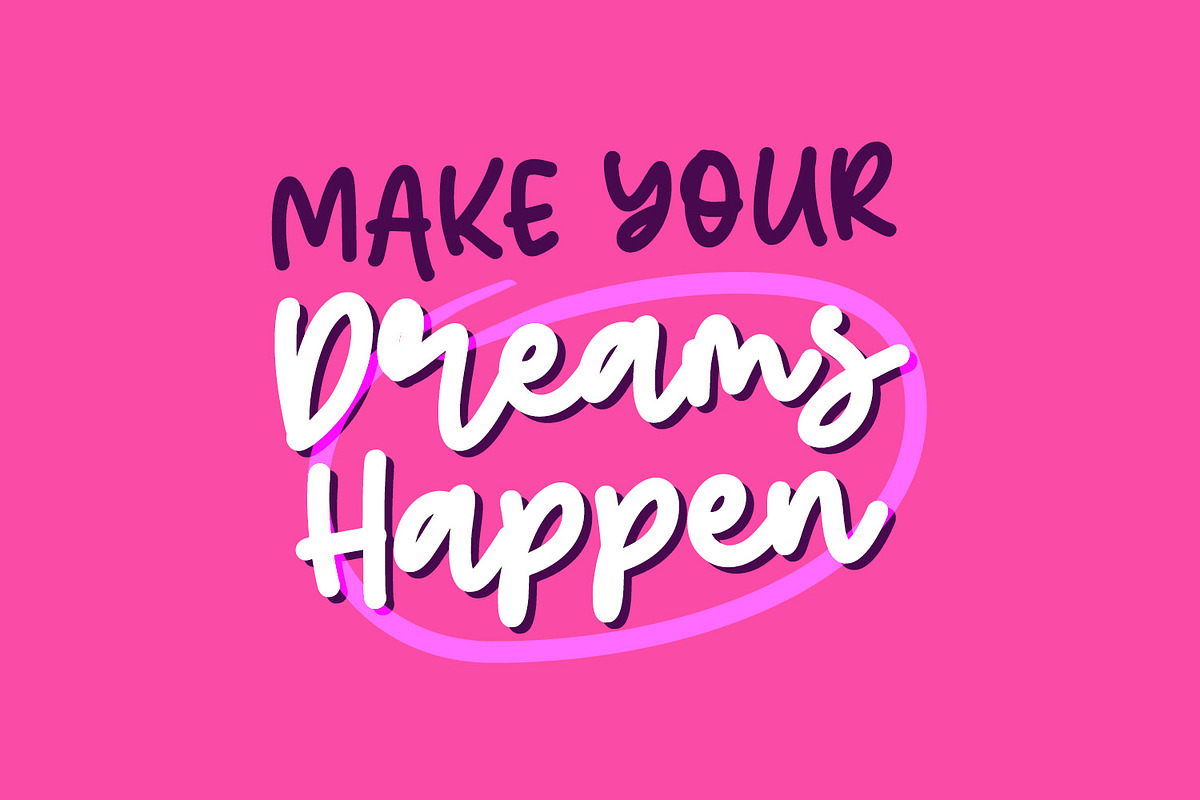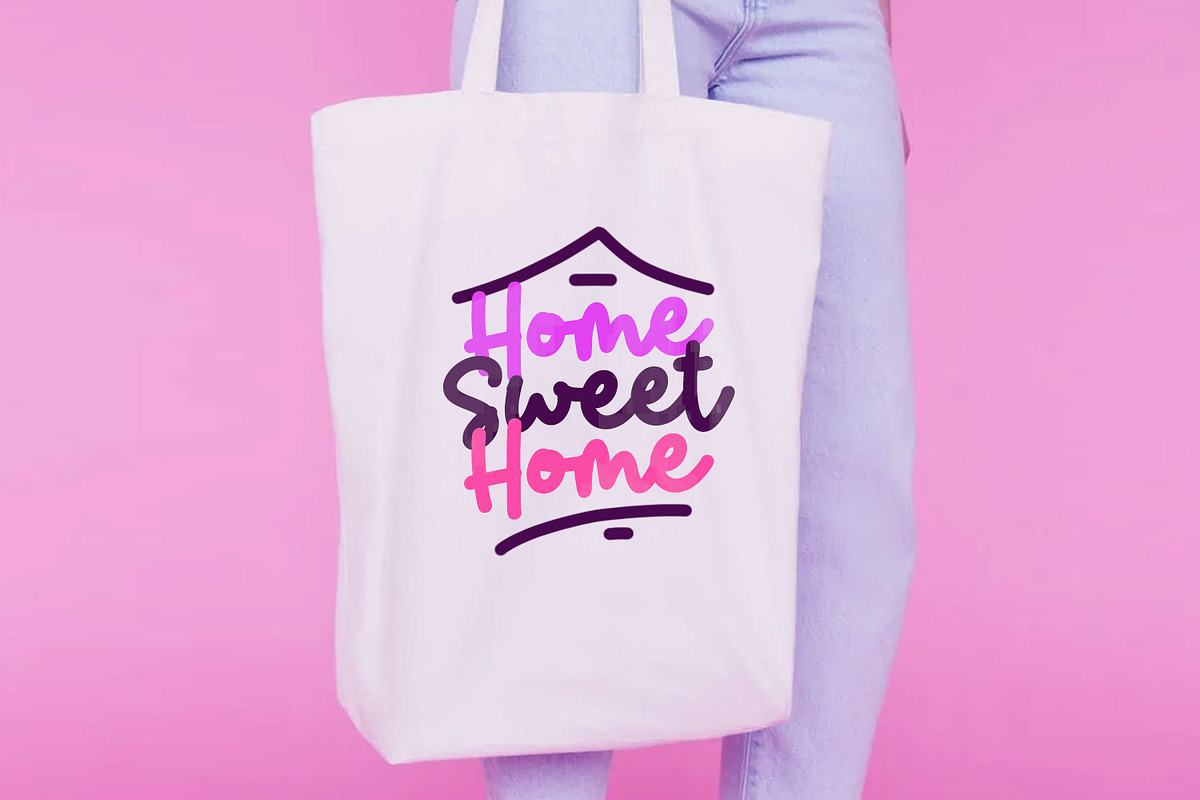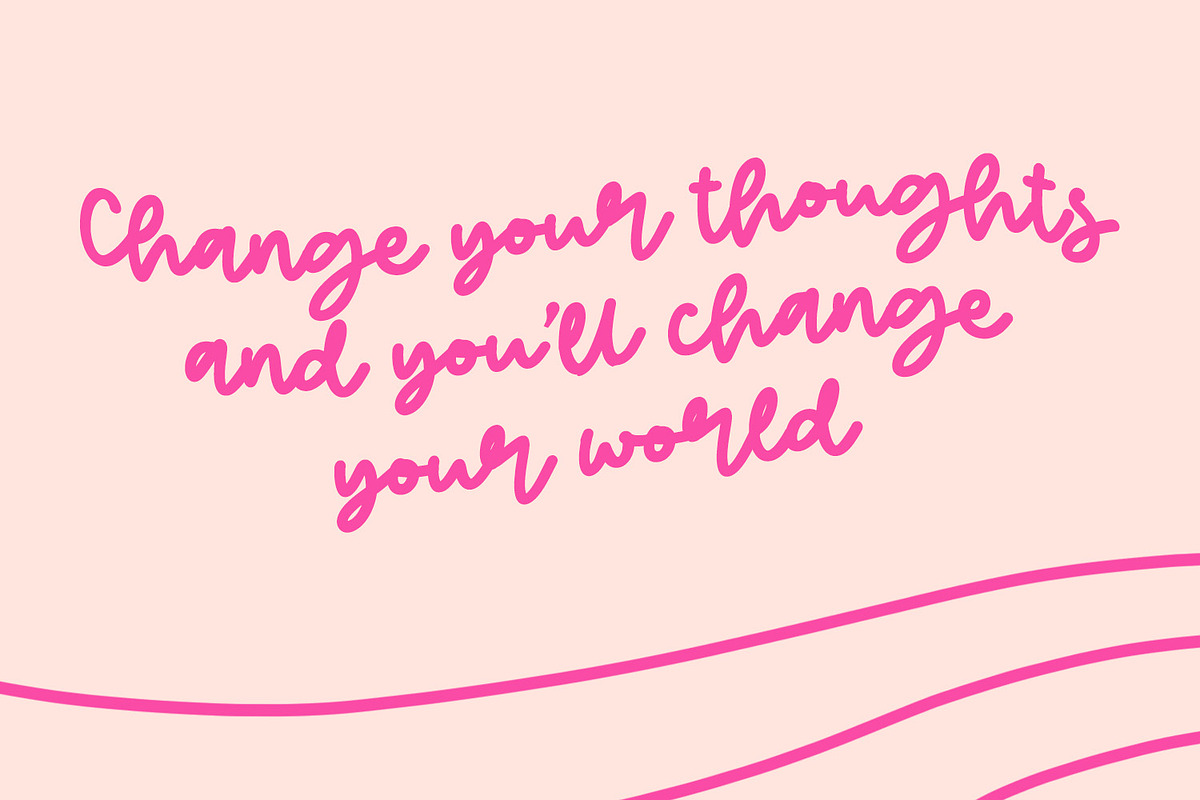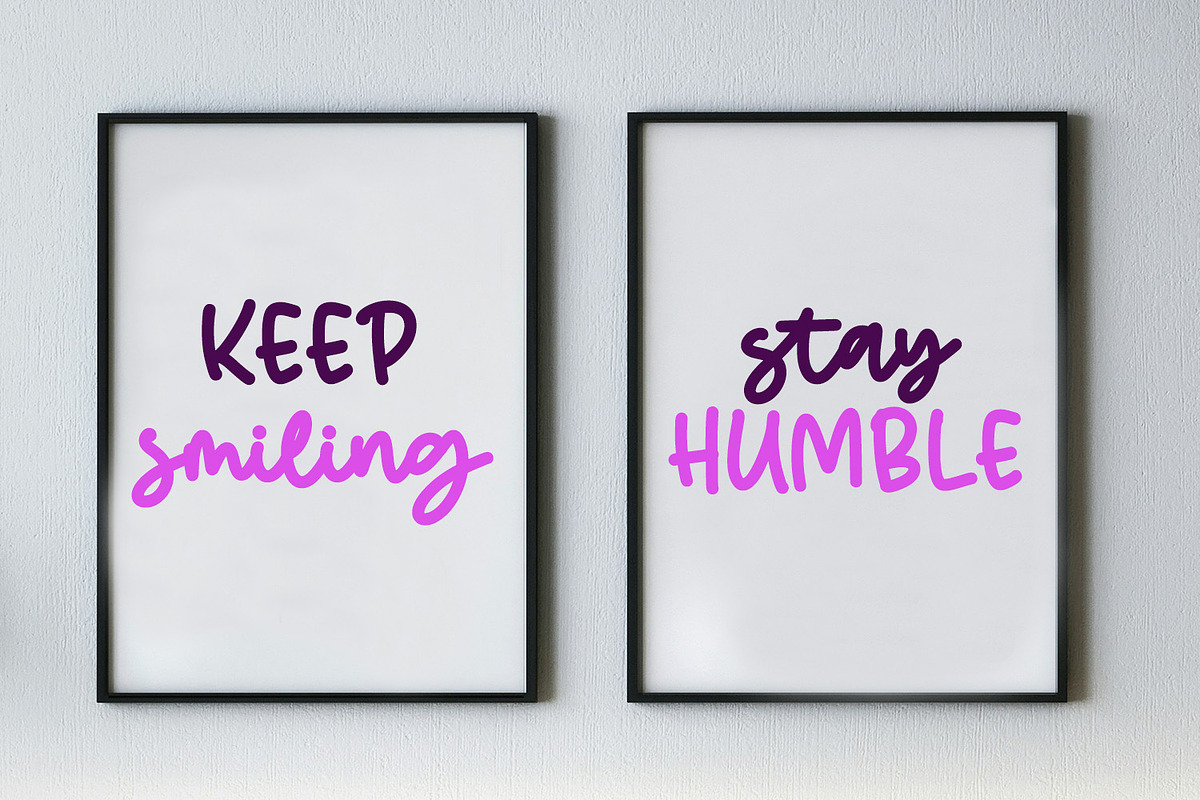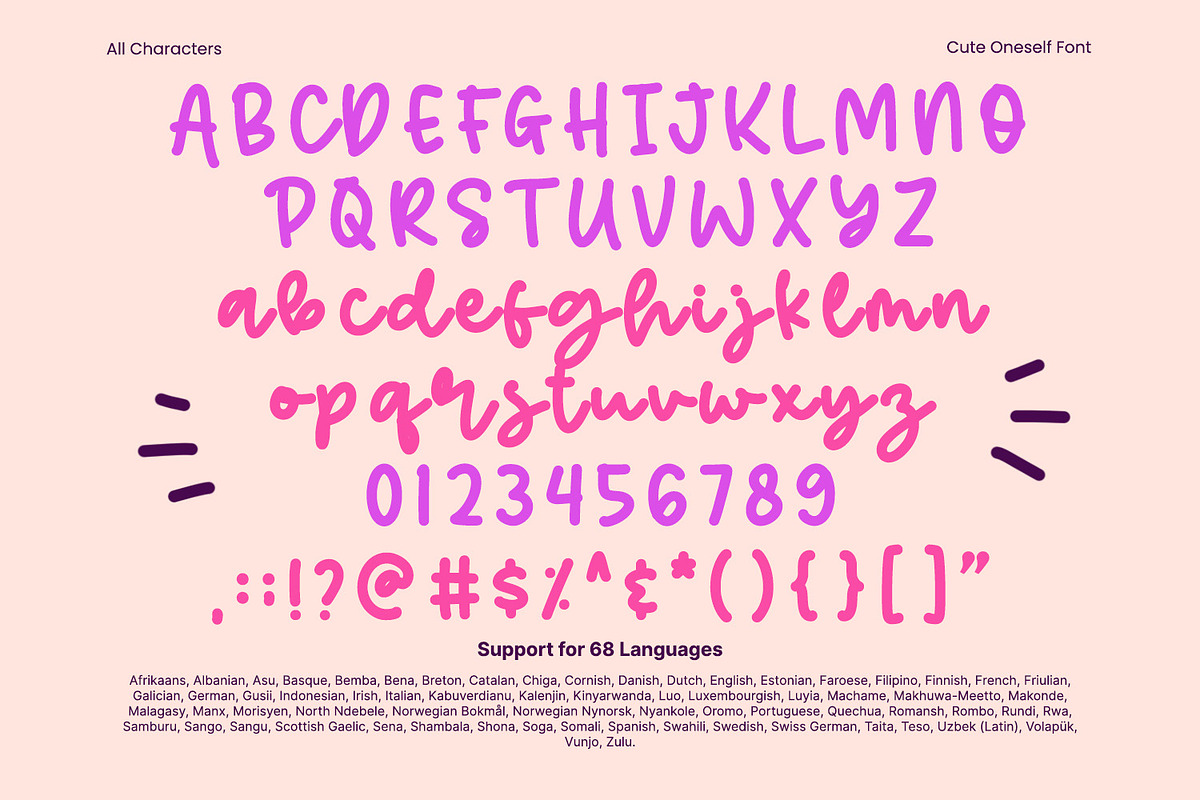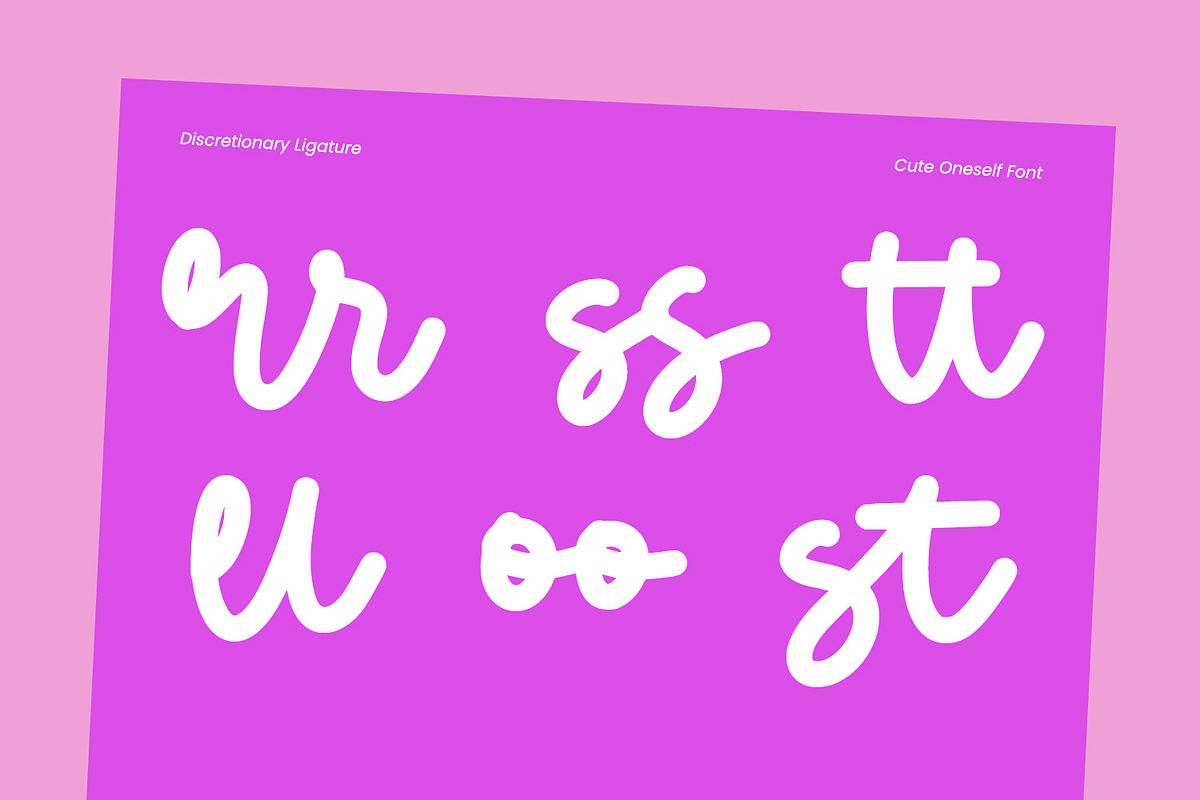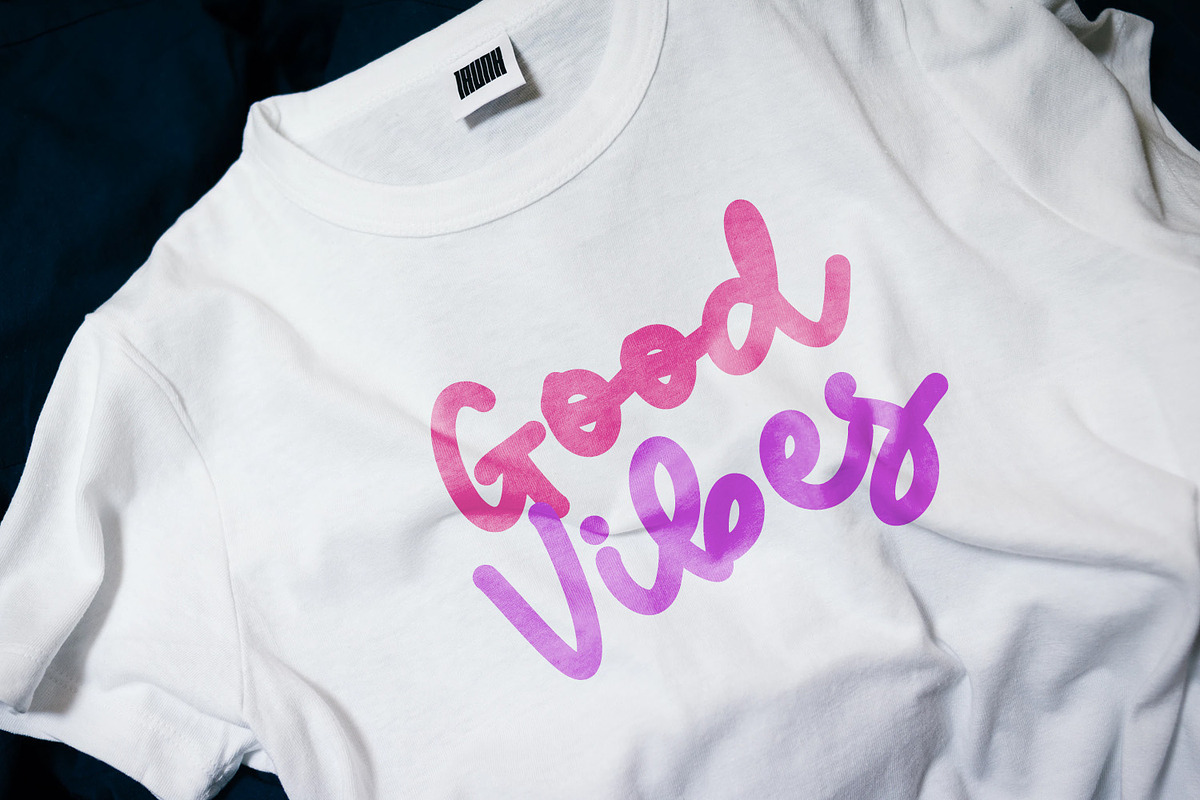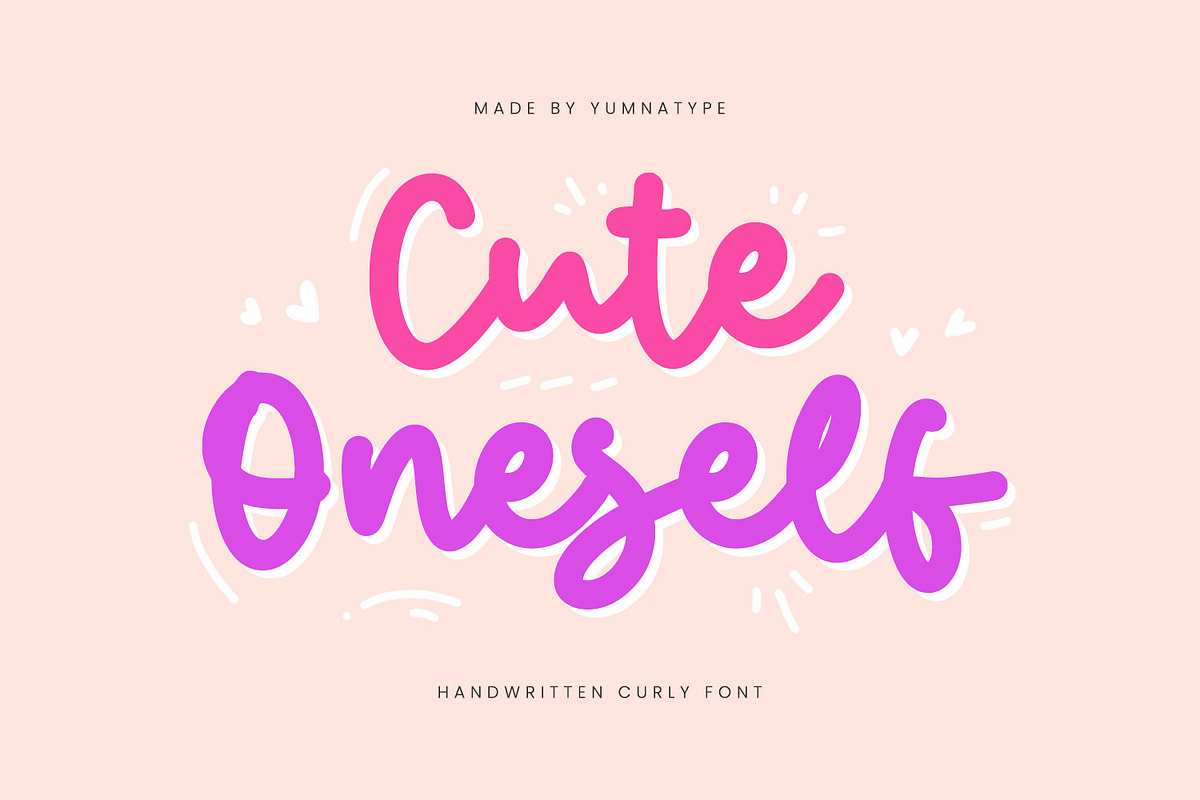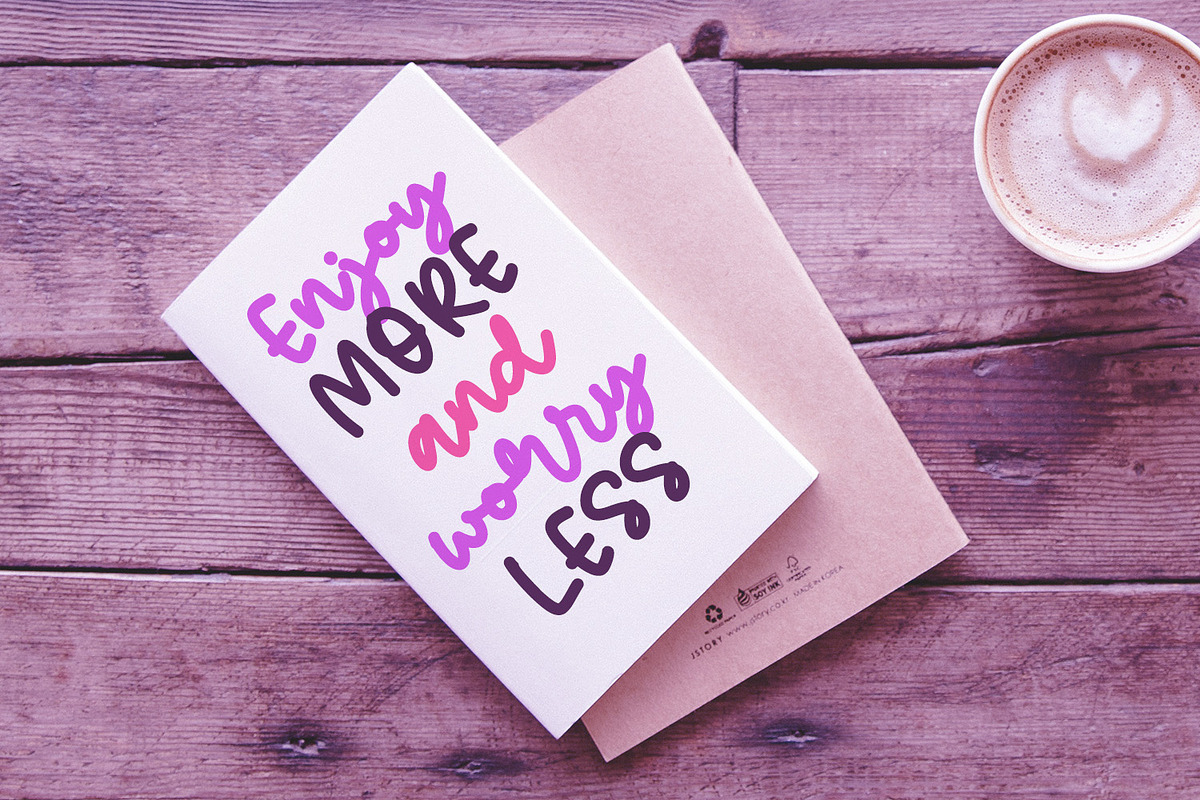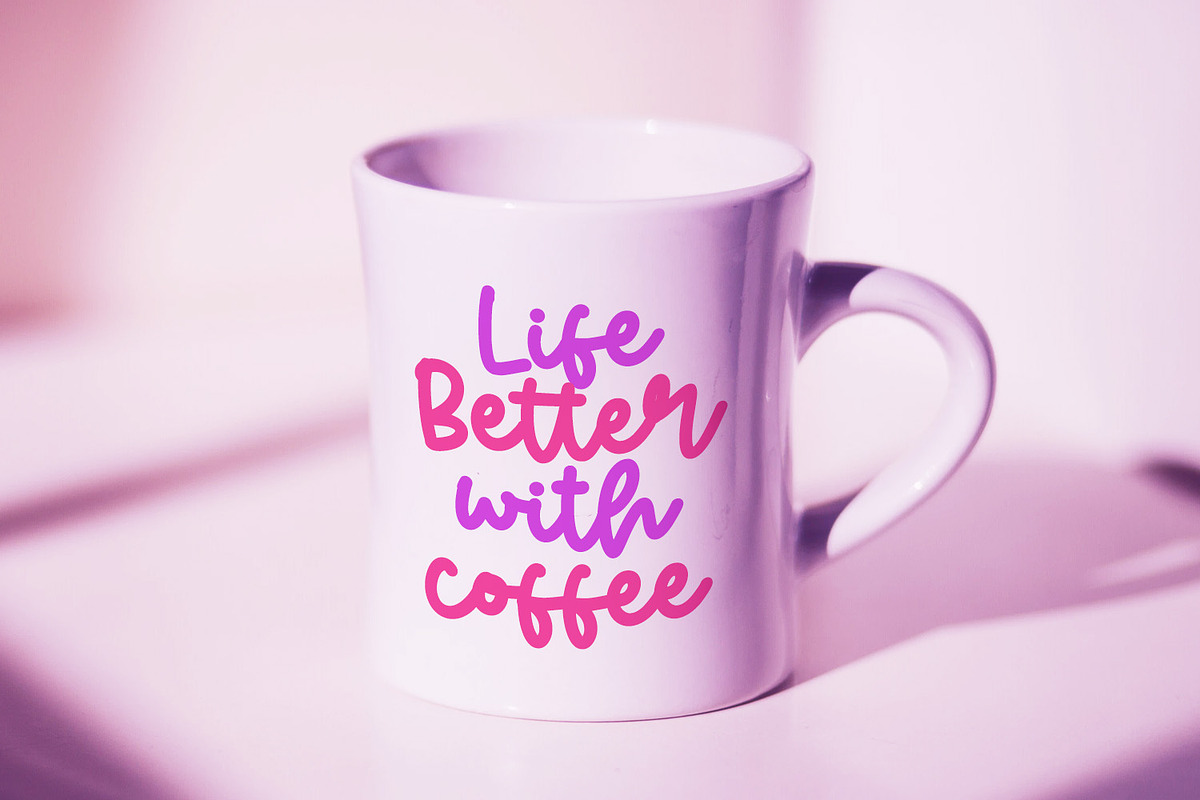
Cute Oneself
Cute Oneself is a delightful handwritten font designed to bring a playful and whimsical touch to your projects. Designed with curly letters that are seamlessly connected to each other, this font exudes charm and a sense of fun, making it perfect for creative and lighthearted designs.
The playful style of Cute Oneself is characterized by its curly letterforms, which add a sense of movement and personality to your text. Despite the whimsical design, the proportions of the letters are almost the same, ensuring a balanced and harmonious appearance. With low contrast, Cute Oneself maintains a soft and gentle look, enhancing its friendly and approachable vibe. In addition, enjoy the features here.
Cute Oneself fits in headlines, logos, posters, flyers, branding materials, print media, editorial layouts, and many more designs. Find out more ways to use this font by taking a look at the font preview.